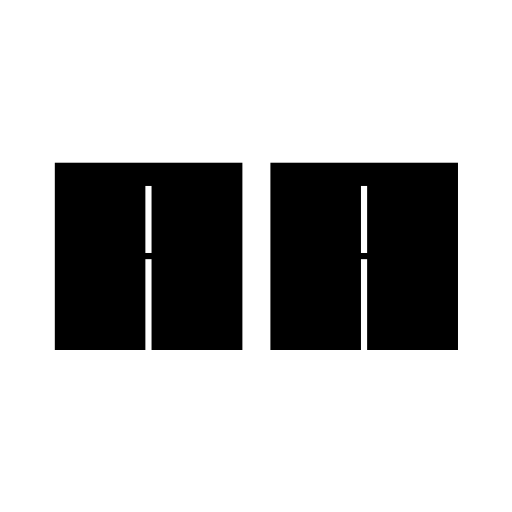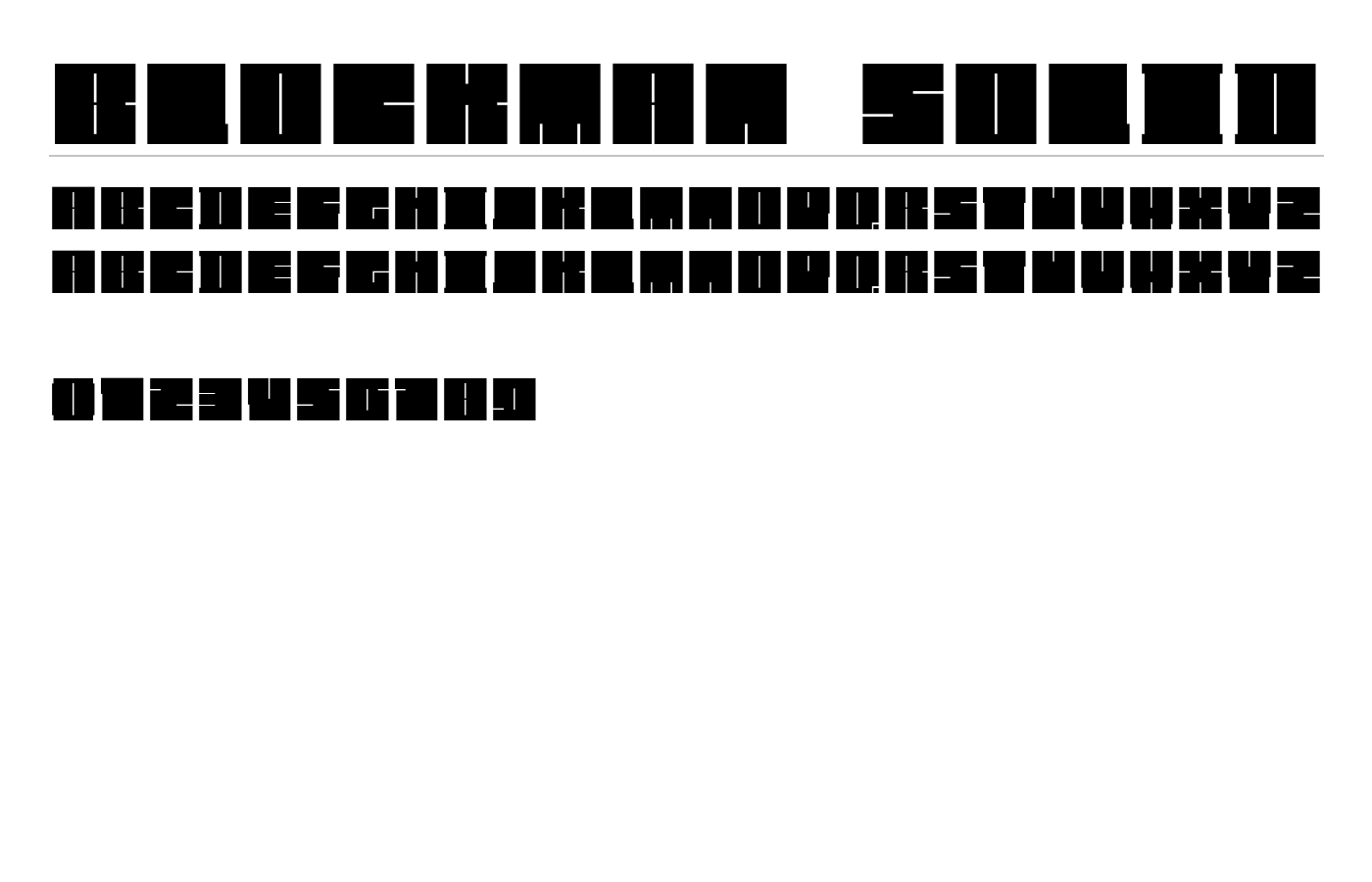
Blockman-solid is a bold, geometric sans serif font characterized by its ultra-thick, blocky letterforms with minimal spacing, creating a strong and impactful presence. Its solid, uniform strokes and squared edges evoke a modern, industrial feel that suits attention-grabbing headlines, posters, and branding where strength and solidity are essential. This font works best in display settings where its heavy, condensed shapes can convey power and confidence without straining readability in large sizes.
Blockman-solid Font